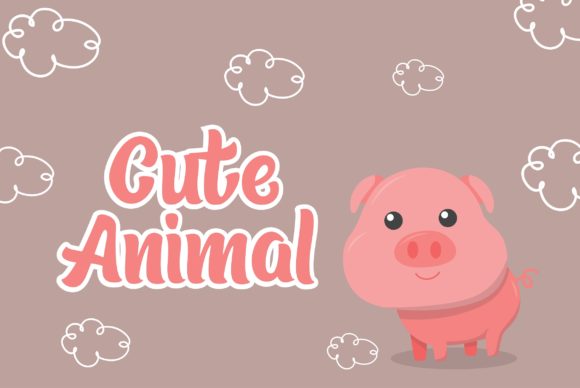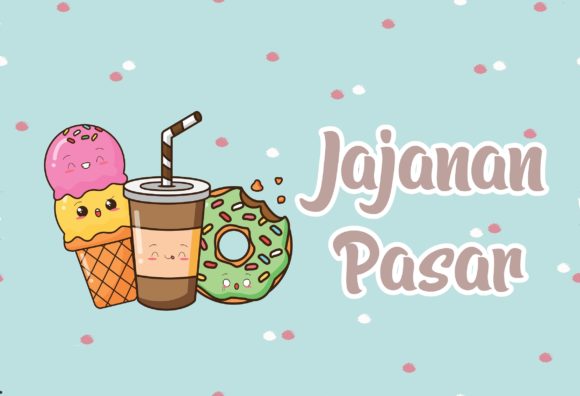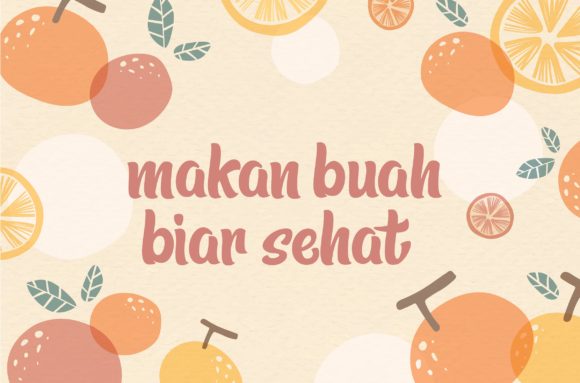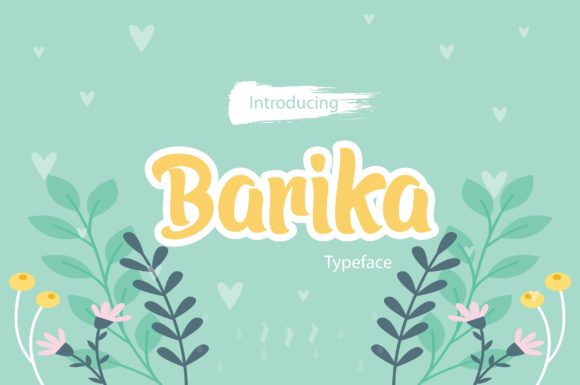
Discover the Charm of Barika Font: A Sweet and Simple Display Font
Are you a designer or crafter looking for a font that can add a touch of sweetness and simplicity to your projects? Look no further than Barika Font! This adorable display font is designed to match a wide variety of creative ideas, making it the perfect addition to your font collection.
What is Barika Font?
Barika Font is a cute display font that is sure to capture your heart with its sweet and simple style. Its bright and cheerful design makes it perfect for a wide range of projects, from crafting and DIY tutorials to digital designs and branding materials.
Key Features of Barika Font
- Cute and Playful Design: Barika Font features a unique and adorable design that is sure to add a touch of whimsy to your projects.
- Sweet and Simple Style: The font’s sweet and simple style makes it perfect for a wide range of creative projects, from kid-friendly designs to adult-oriented crafts.
- Display Font: Barika Font is a display font, making it perfect for headlines, titles, and other attention-grabbing elements in your designs.
- Wide Range of Uses: This versatile font can be used in a variety of projects, including crafting and DIY tutorials, digital designs, branding materials, and more.
Why Choose Barika Font?
So why choose Barika Font for your next project? Here are just a few reasons why this font stands out:
- Easy to Read: Despite its playful design, Barika Font is easy to read, making it perfect for use in titles, headings, and other text elements.
- Highly Versatile: This font can be used in a wide range of projects, from digital designs to print materials.
- Unique and Eye-Catching: Barika Font’s unique design makes it sure to grab attention and add a touch of personality to your projects.
How to Use Barika Font in Your Projects
Using Barika Font in your projects is easy! Here are a few ideas to get you started:
- Crafting and DIY Tutorials: Use Barika Font to add a touch of sweetness and simplicity to your crafting and DIY tutorials.
- Digital Designs: Add Barika Font to your digital designs, such as social media graphics, blog posts, and more.
- Branding Materials: Use Barika Font in your branding materials, such as logos, business cards, and brochures.
- Paper Crafts: Add Barika Font to your paper crafts, such as cards, invitations, and scrapbook pages.
Tips and Tricks for Using Barika Font
Here are a few tips and tricks to help you get the most out of Barika Font:
- Experiment with Colors: Try pairing Barika Font with a variety of colors to add a pop of personality to your projects.
- Mix and Match with Other Fonts: Combine Barika Font with other fonts to create a unique and eye-catching design.
- Use it Sparingly: Use Barika Font sparingly to add a touch of sweetness and simplicity to your projects without overwhelming the design.
In conclusion, Barika Font is a sweet and simple display font that is sure to add a touch of charm to your projects. With its cute and playful design, highly versatile uses, and easy-to-read style, this font is perfect for designers and crafters alike. So why wait? Fall in love with Barika Font and brighten up your projects today!